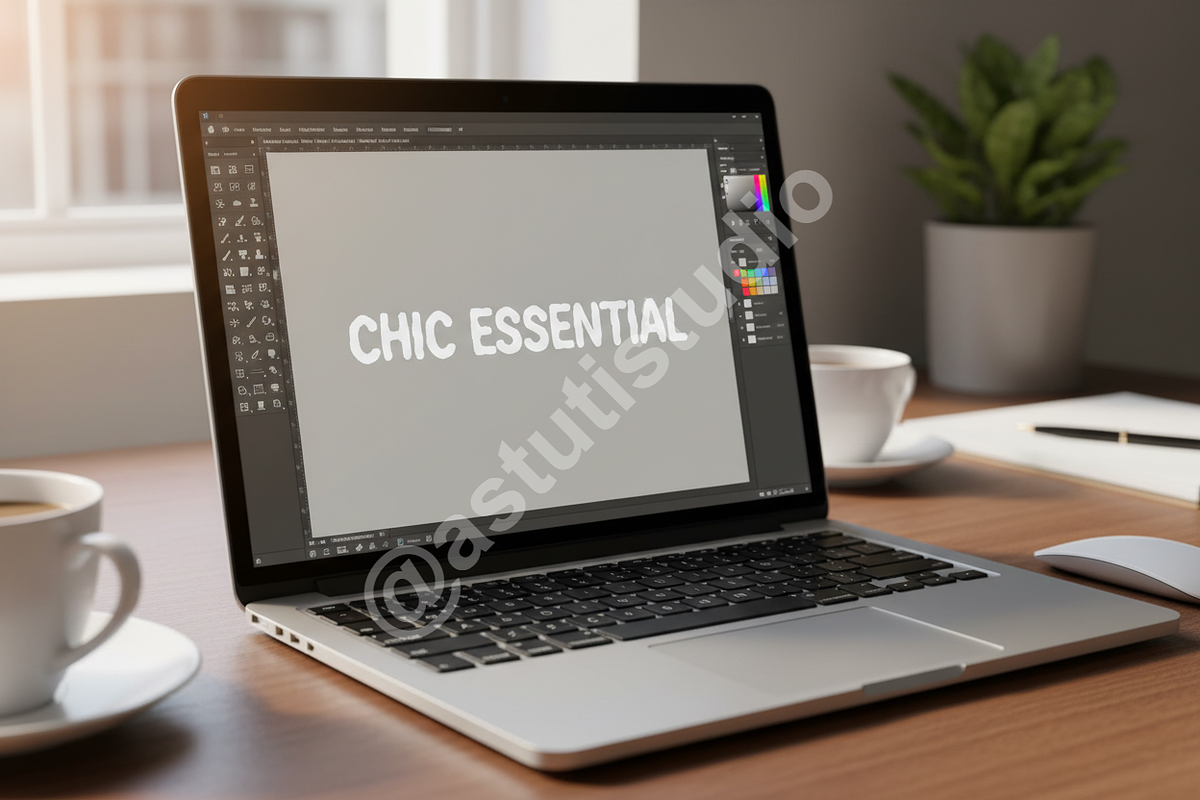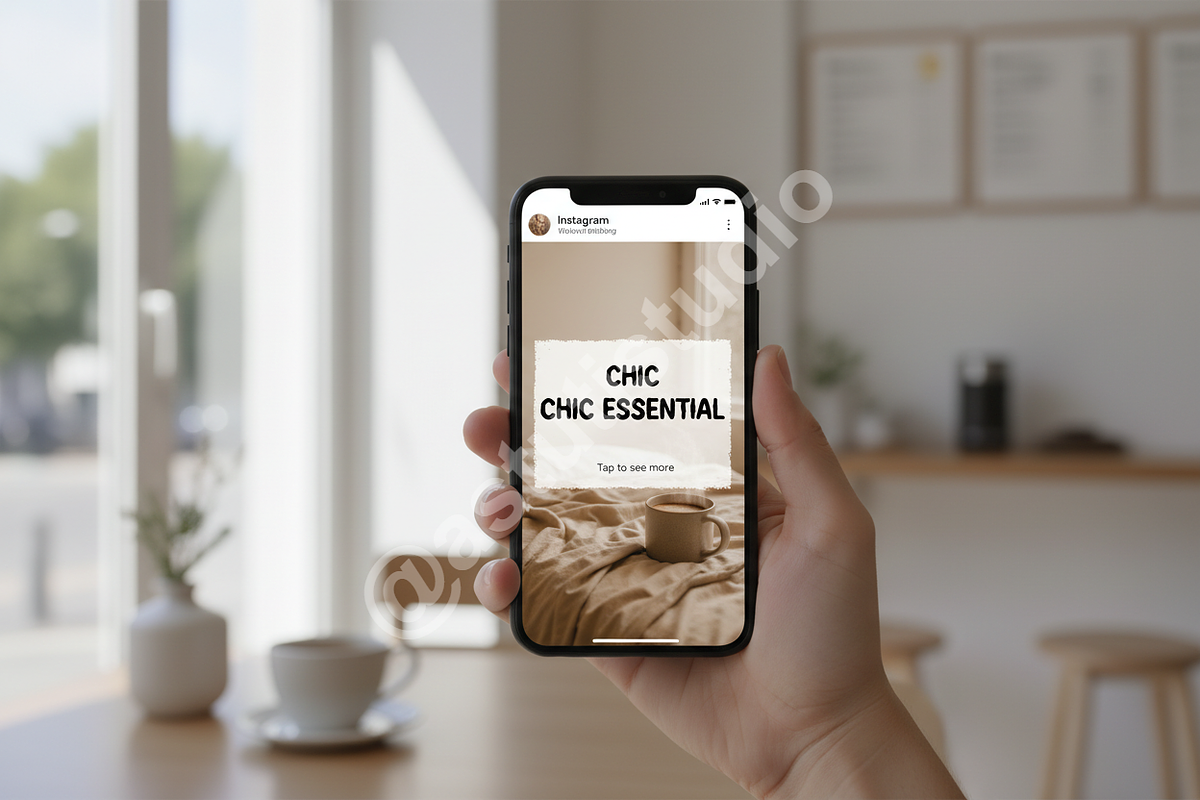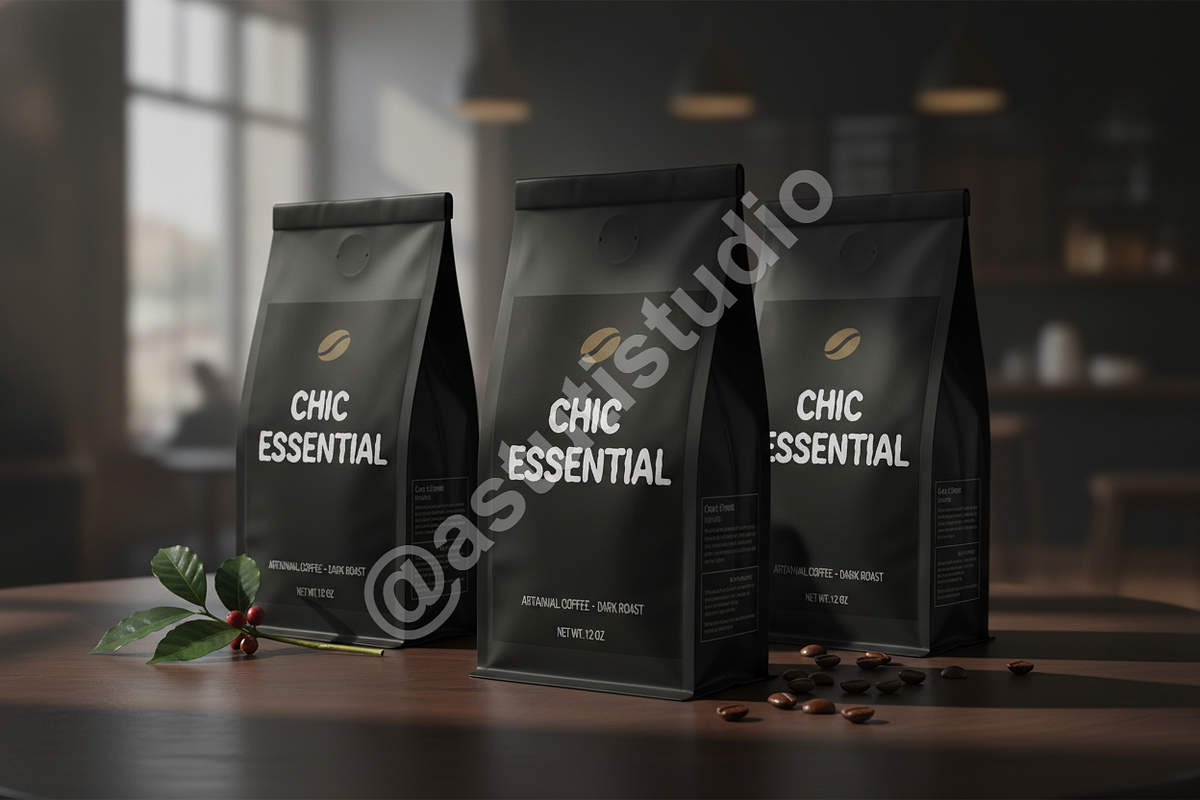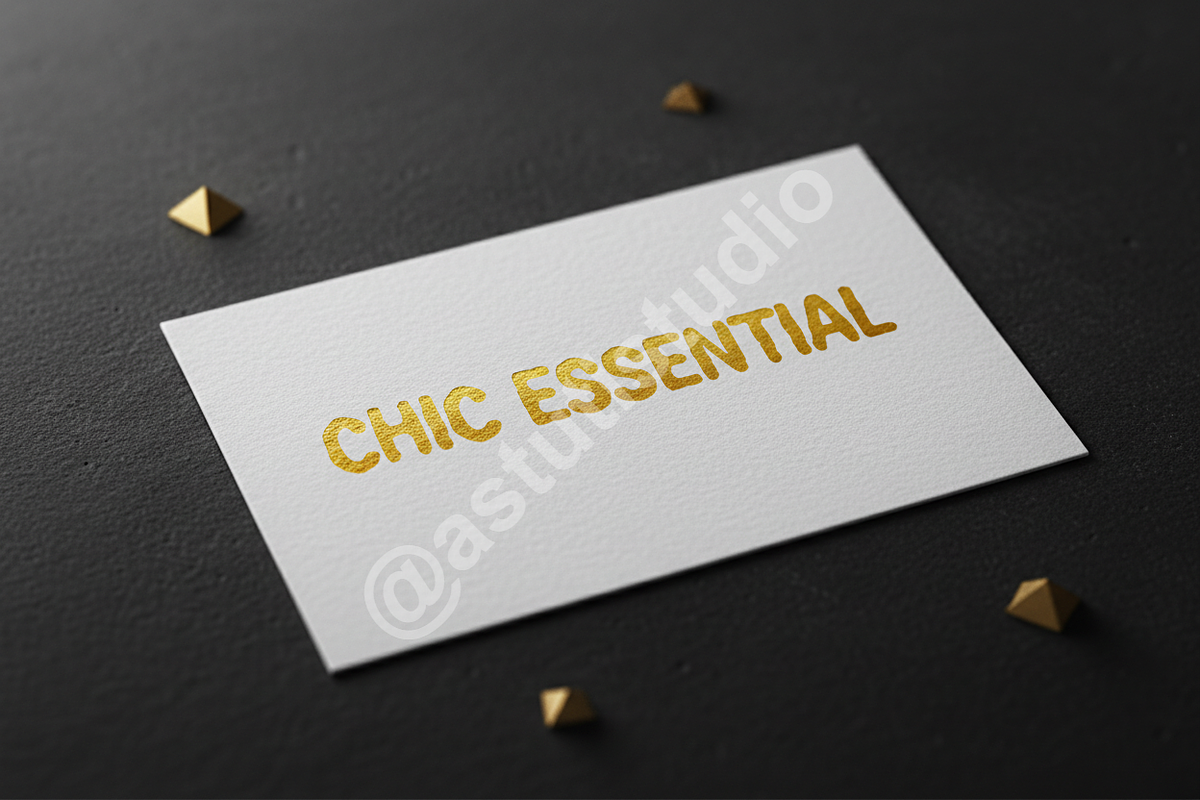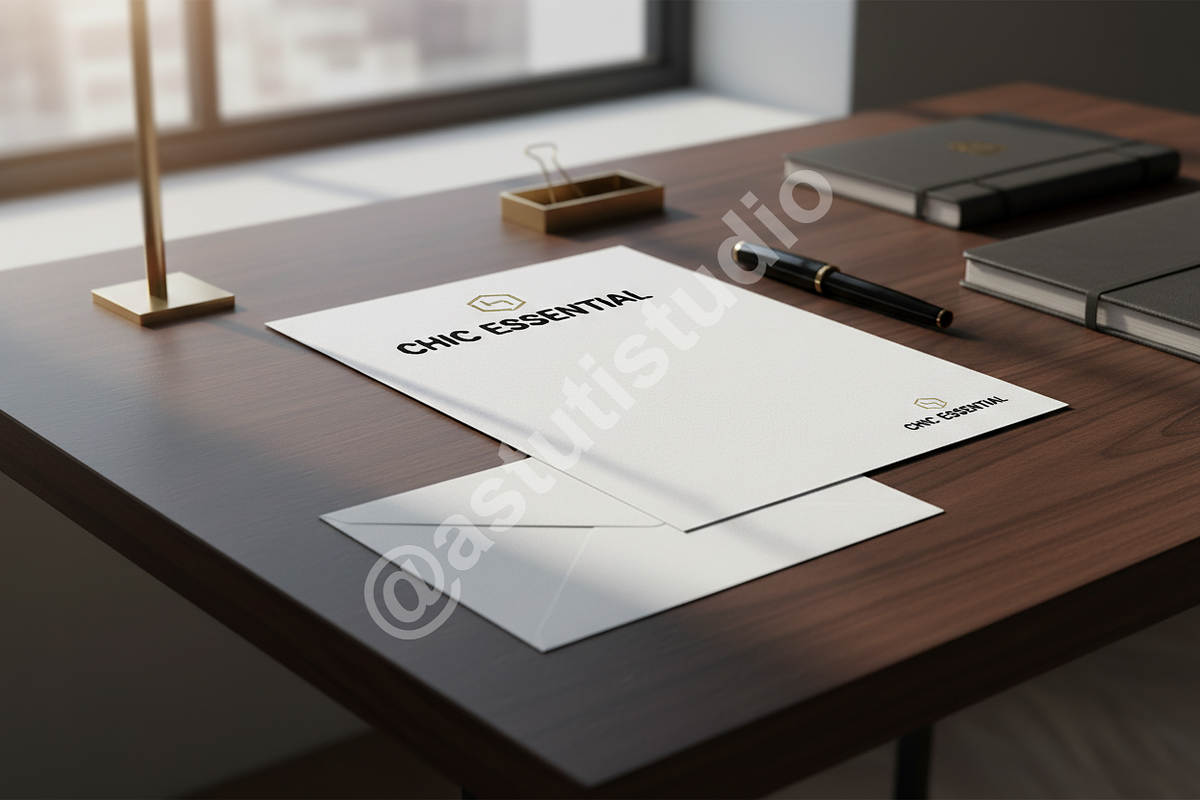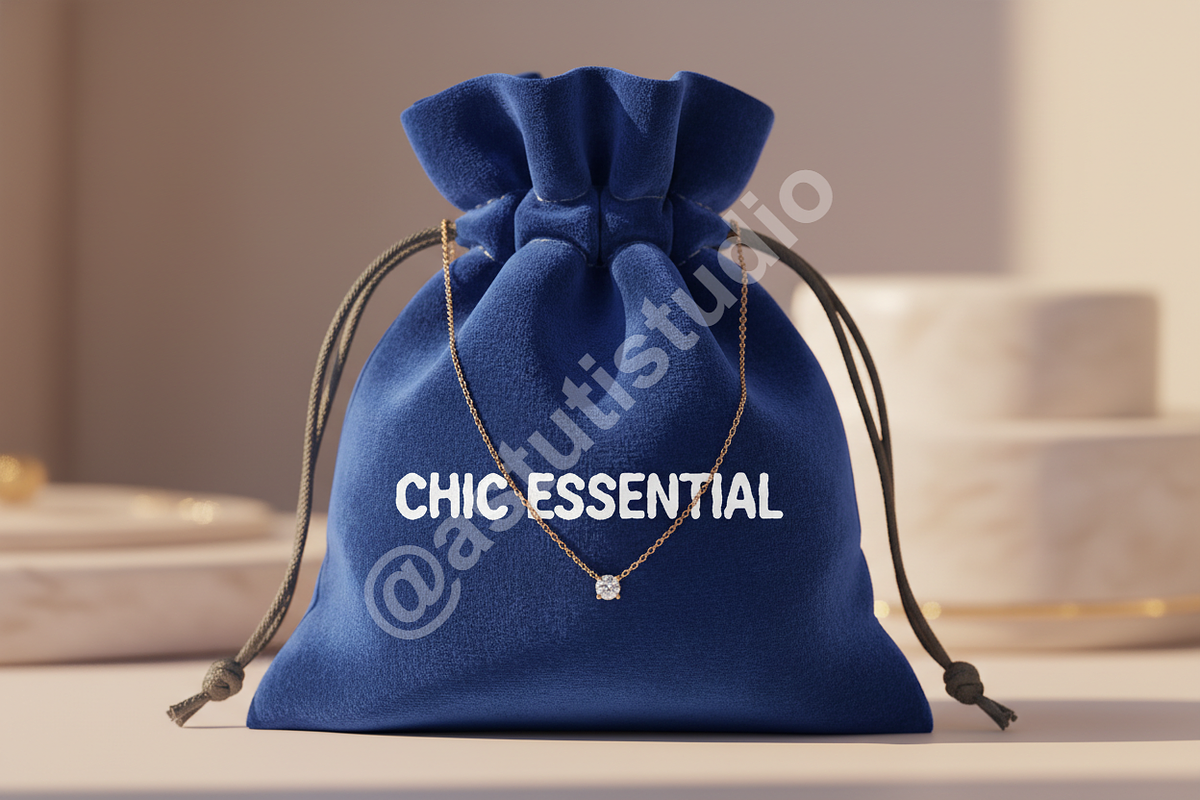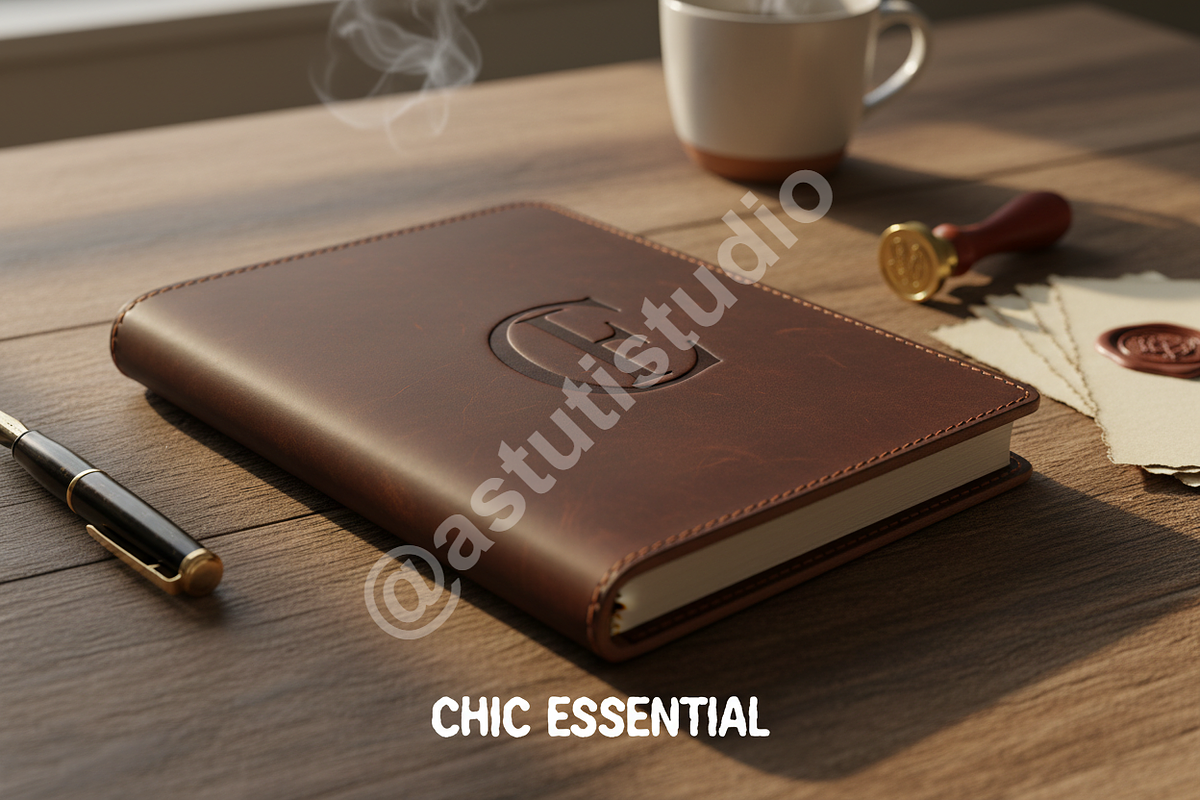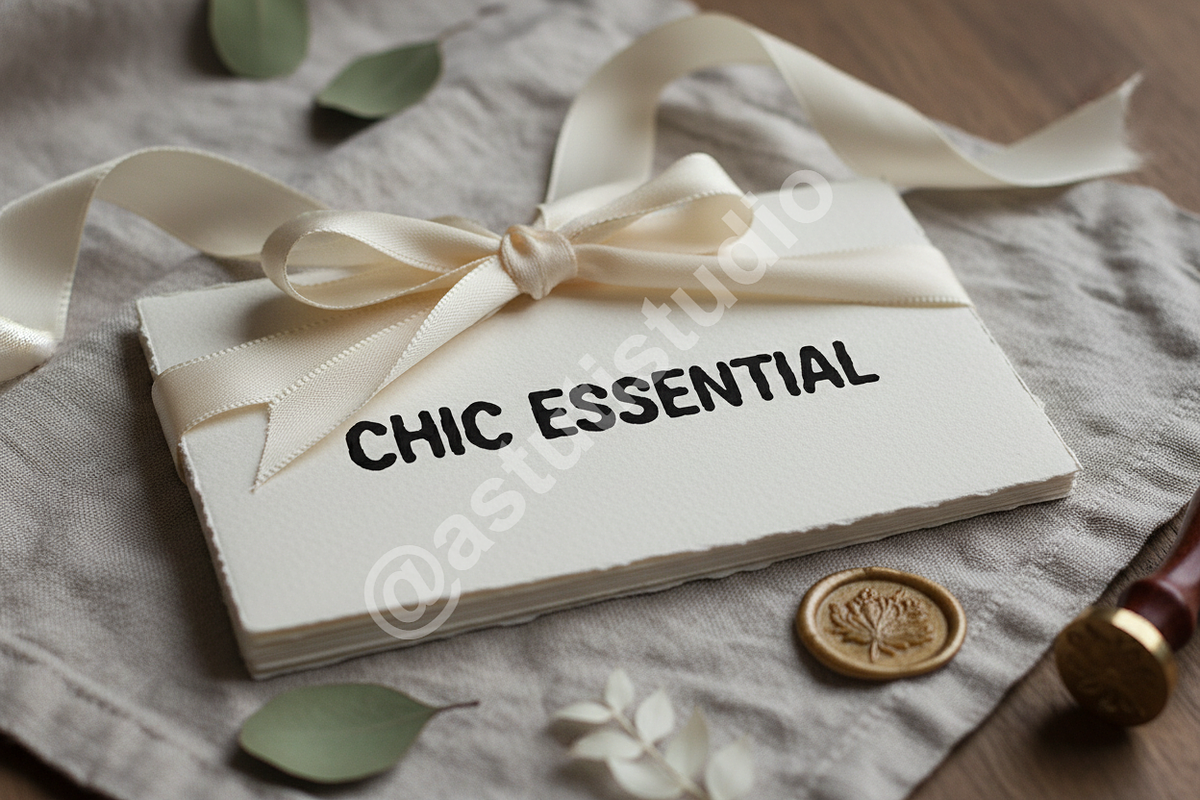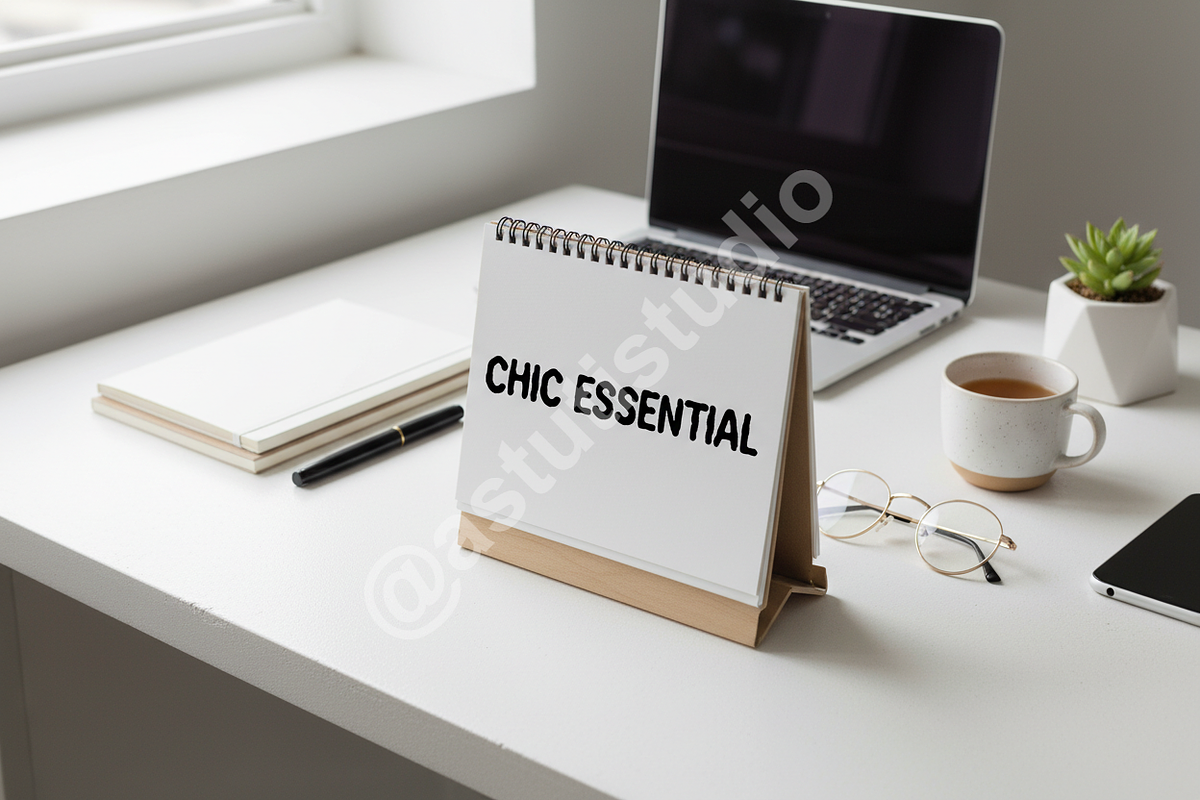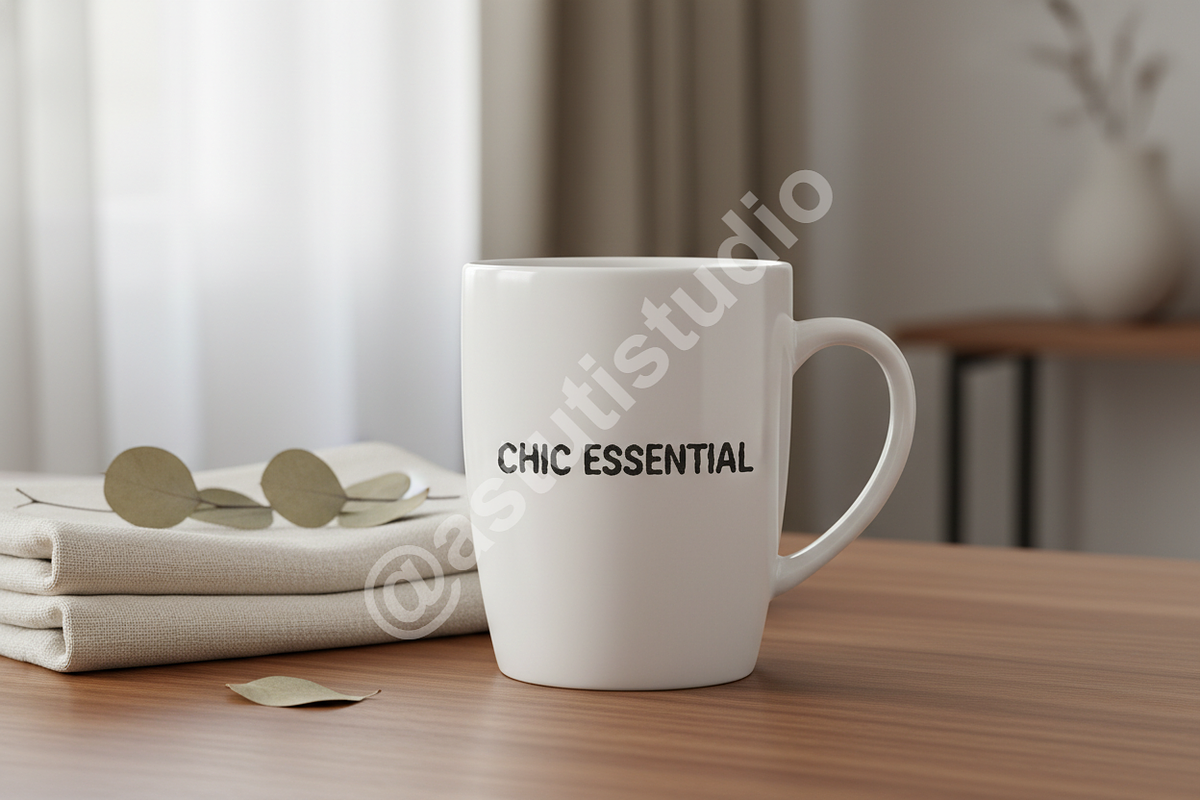
Coxi: Luxury Modern Display Serif Ty
Coxi is a sophisticated, high-contrast serif typeface designed to elevate your visual identity. Crafted with precision and an eye for enduring elegance, Coxi blends classic architectural structure with contemporary sharp edges, making it the definitive choice for premium design projects.
--- Key Features & Versatility ---
Coxi is built for impact and maximum readability across all platforms. Its expansive character set and OpenType features ensure seamless integration into complex design workflows.
• Luxury Branding: Ideal for high-end fashion houses, jewelry lines, and artisanal products where quality communication is paramount. • Editorial Design: Provides a crisp, authoritative voice for magazines, annual reports, and art books. • Digital & Social Media: Maintains clarity even at small scales, offering sleek headlines for Instagram stories, website headers, and digital advertisements.